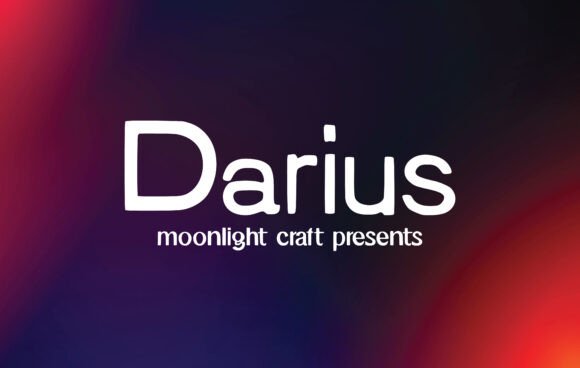
Darius Font: Elevate Your Creative Projects with a Lovely Sans Serif Font
Are you a designer or crafter looking for a font that can take your creative ideas to the next level? Look no further than the Darius Font, a beautiful sans serif font that is perfect for creating eye-catching logos, branding, and quotes. In this article, we’ll dive into the features and benefits of the Darius Font, and explore how it can help you elevate your design projects.
What is Darius Font?
Darius Font is a modern sans serif font that is designed to be both clean and elegant. Its simple yet sophisticated design makes it perfect for a wide range of creative projects, from logos and branding to quotes and social media graphics. The font is highly versatile and can be used in both digital and print applications.
Features of Darius Font
So, what makes Darius Font so special? Here are just a few of its key features:
- Clean and Simple Design: Darius Font has a clean and simple design that makes it easy to read and understand. Its sans serif design ensures that your text looks modern and elegant.
- Highly Versatile: Darius Font is highly versatile and can be used in a wide range of creative projects, from logos and branding to quotes and social media graphics.
- Perfect for Logos and Branding: The font’s clean and elegant design makes it perfect for creating eye-catching logos and branding materials.
- Supports Multiple Languages: Darius Font supports multiple languages, making it a great choice for designers and crafters who work with international clients.
Benefits of Using Darius Font
So, why should you choose Darius Font for your creative projects? Here are just a few of the benefits of using this lovely sans serif font:
- Elevate Your Design Projects: Darius Font has the potential to take your creative ideas to the highest level. Its clean and elegant design ensures that your text looks modern and sophisticated.
- Save Time and Effort: With Darius Font, you can create professional-looking designs in no time. Its simplicity and versatility make it easy to use and customize.
- Stand Out from the Crowd: Darius Font is a unique and distinctive font that can help you stand out from the crowd. Its clean and elegant design ensures that your text looks modern and sophisticated.
In conclusion, Darius Font is a lovely and beautiful sans serif font that has the potential to take your creative ideas to the highest level. Its clean and elegant design makes it perfect for creating eye-catching logos, branding, and quotes. With its versatility, simplicity, and sophistication, Darius Font is a great choice for designers and crafters who want to elevate their design projects and stand out from the crowd.